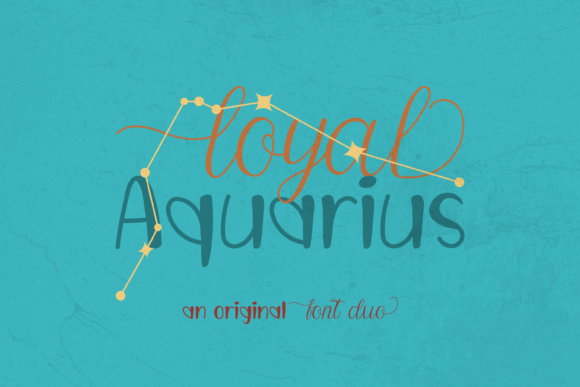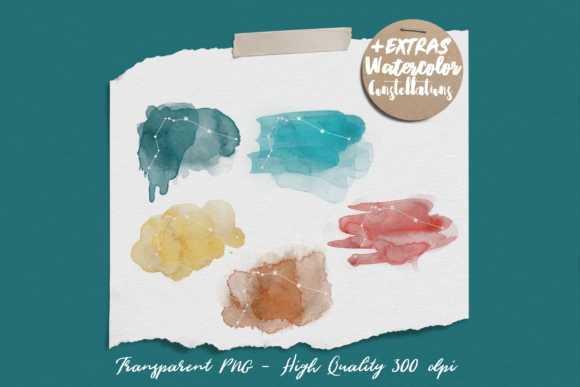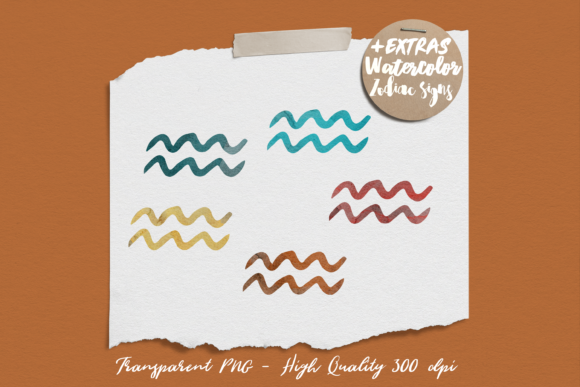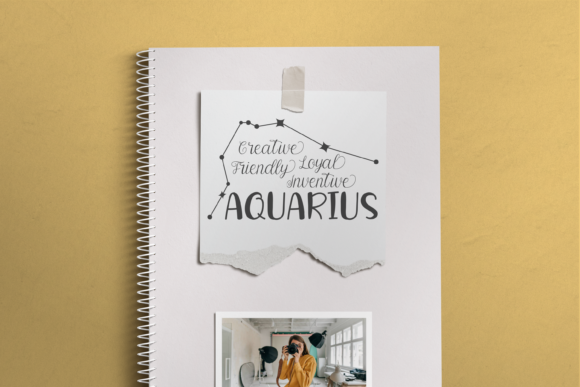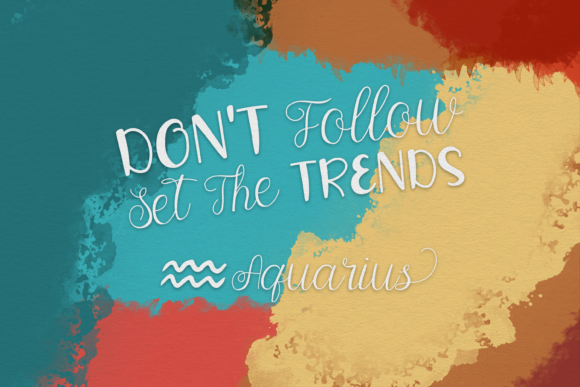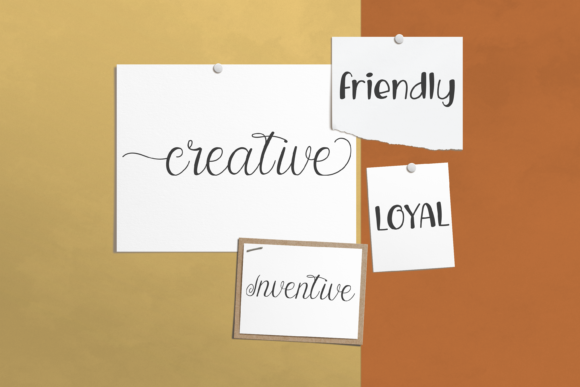
Loyal Aquarius Duo Font
About Loyal Aquarius Duo Font
Loyal Aquarius Duo consists of two fonts (script and display), designed to complement each other perfectly. They are PUA encoded which means you can access all of the glyphs and swashes with ease! Together or apart, Loyal Aquarius Duo are ideal for adding a chic and cheery touch to your crafts. T